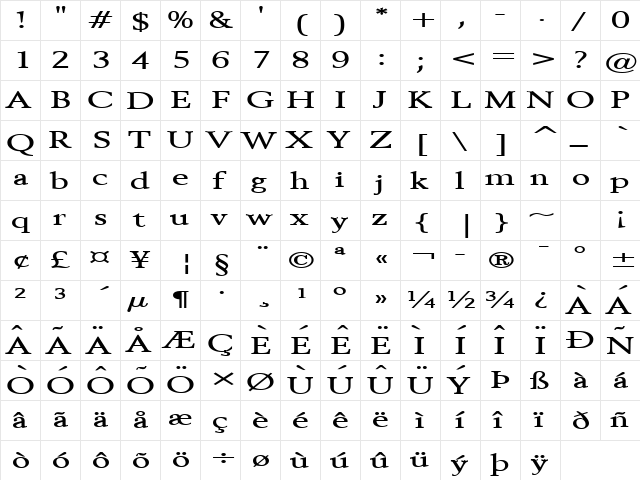
Revive 8 Extended Bold
Design Context for Revive 8 Extended Typeface
Revive 8 Extended offers clean, dependable letterforms without strong stylistic allegiance, making it a practical choice for designers who need flexibility. Its bold stroke weight gives it real presence on the page.